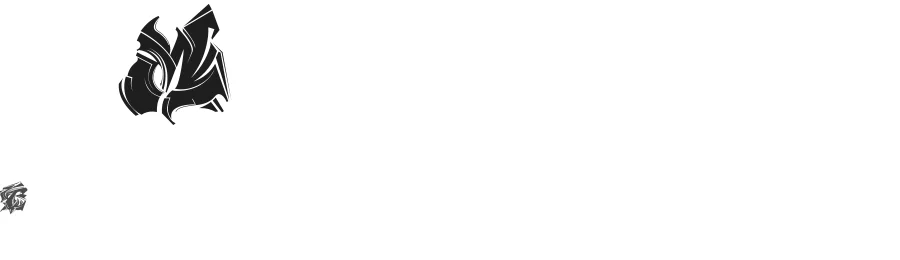
About Chase Zen Sprawl Font
Design note: this font works in overlap. as in the upper case over laps the lower case. creating a snug fit. its a display font
Chase Zen Sprawl Font is a script font that shines as a display or heading face. Pair it with a clean sans-serif or serif font for body text β the contrast creates a clear hierarchy while the two styles stay balanced and easy to read.